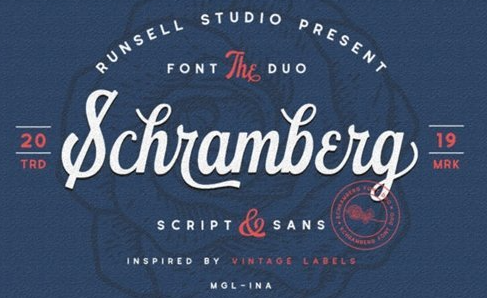
Schramberg Font Duo + Logo Template 3895087
Introducing!!! Schramberg the new typeface inspired by vintage labels and combinating with modern design. Schramberg features with stylistic alternate, contextual alternate and stylistic set. This font come with 2 style, script and sans serif to mix and match your vintage design, t-shirt, logo, labels, badges, posters and etc. To access the alternate glyphs, you need a program that supports OpenType features such as Adobe Illustrator CS, Adobe Photoshop CC, Adobe Indesign and Corel Draw.